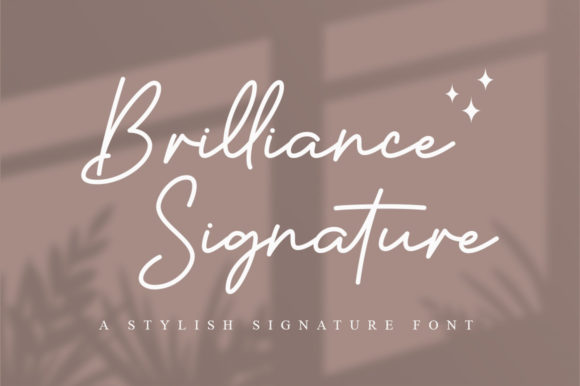
The Magic of Brilliance Signature Font: A Designer’s Delight
I still remember the time I was working on a wedding invitation project, and my client asked for a font that would make their special day feel like a fairytale. I scoured the internet, tried countless fonts, but nothing seemed quite right. That was until I stumbled upon Brilliance Signature Font. ✨ This dainty and flowing handwritten font has been a game-changer for me, and I’m excited to share its magic with you!
- ✨ Sweet and joyful personality that instantly adds a romantic touch to any design
- ✅ Flowing script that feels elegant and refined
- 💕 Perfect for wedding invitations, cards, and other designs that require a personal touch
- 🎨 Highly versatile and can be used for a variety of creative projects
While Brilliance Signature Font is a stunning addition to any design, there are a few things to keep in mind: 🤔
- ⚠️ Some letters may not connect as seamlessly as you’d like, which can affect the overall flow of the text
- ⚠️ Limited character set, which might not be ideal for very long texts or paragraphs
The Story Behind Brilliance Signature Font
Brilliance Signature Font was designed with love and care by a talented typographer who wanted to create a font that would make people feel special. 💕 The designer’s inspiration came from classic wedding invitations and the romance of handwritten letters. The result is a font that’s both elegant and playful, perfect for adding a personal touch to your designs.
| Font Name | Brilliance Signature Font |
| Author | Graphix Line Studio |
Q: What is the best way to use Brilliance Signature Font?
A: Brilliance Signature Font is perfect for wedding invitations, cards, and other designs that require a romantic and personalized touch. It’s also great for creative projects, such as posters, flyers, and social media graphics.
Q: Is Brilliance Signature Font suitable for long texts or paragraphs?
A: While Brilliance Signature Font is a beautiful font, it may not be the best choice for very long texts or paragraphs. It’s best used for short texts, such as headings, titles, or captions.